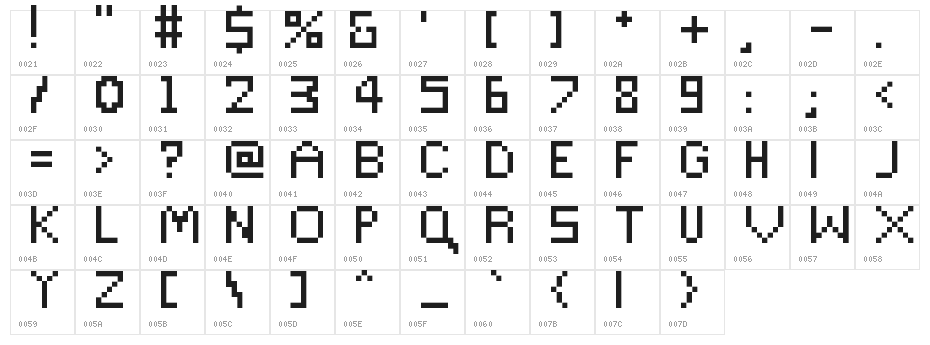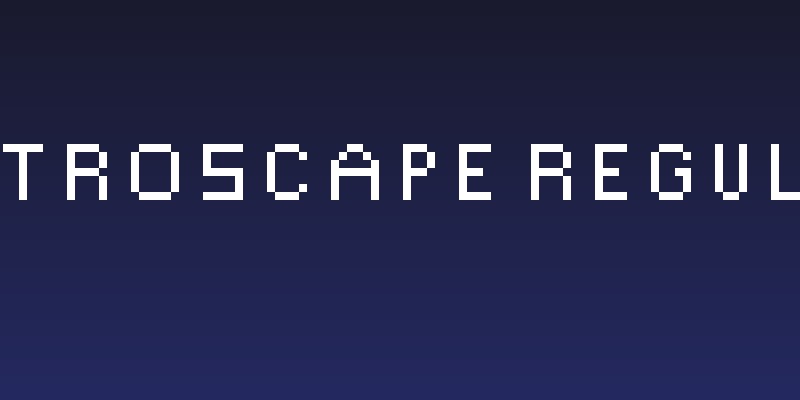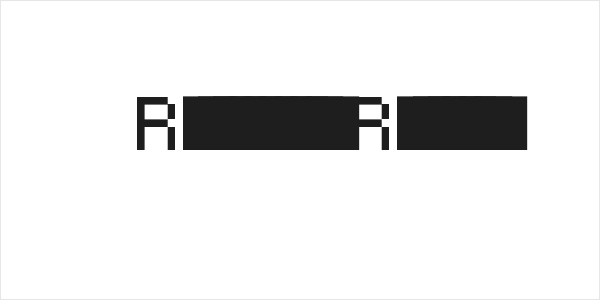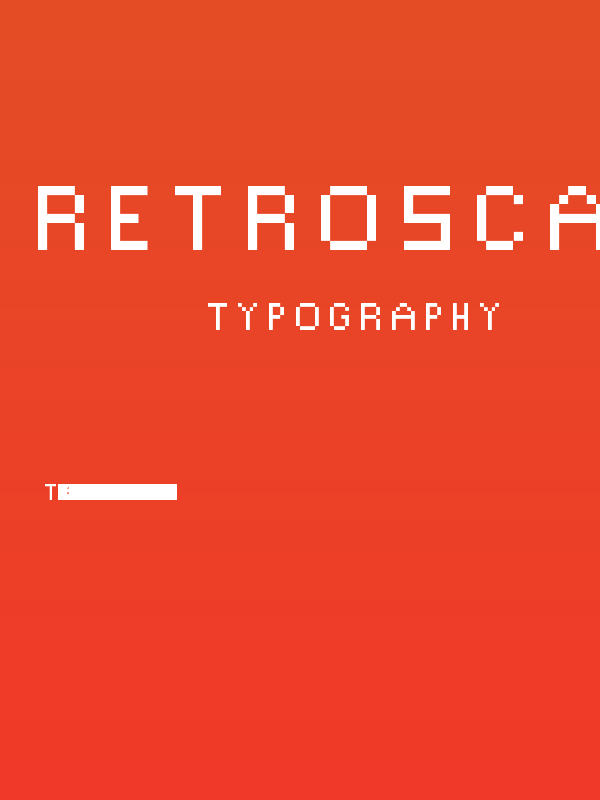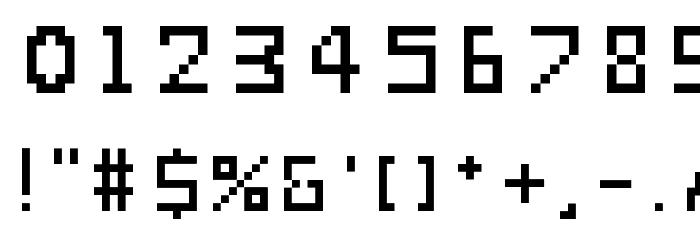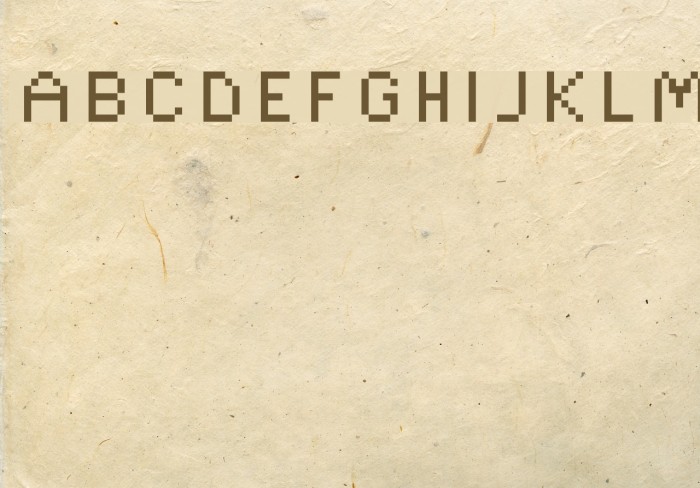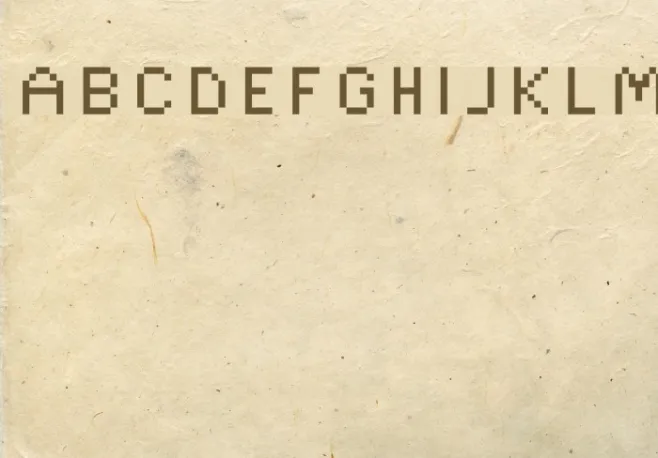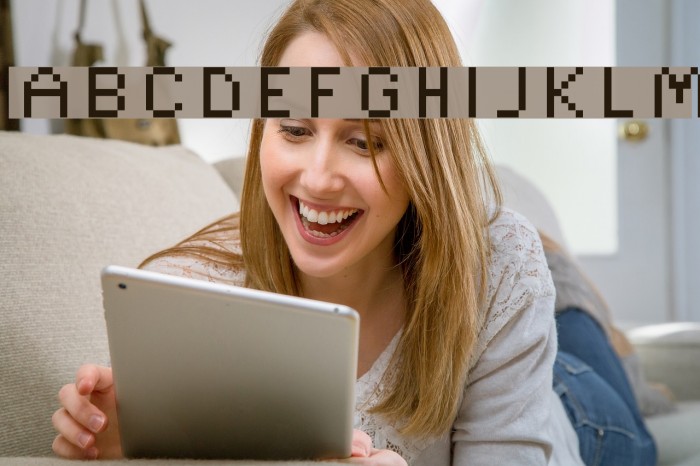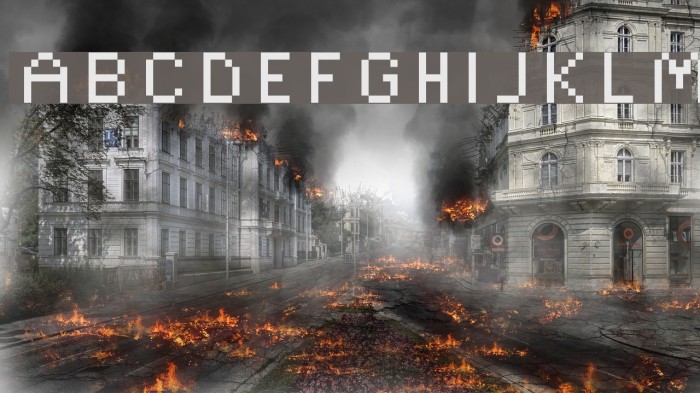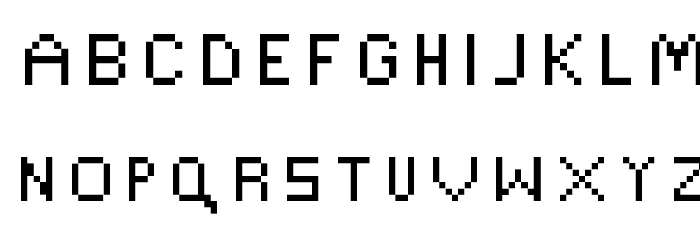
Retroscape Regular Font
Retroscape Regular Description
This font features a pixelated, blocky design reminiscent of early digital displays and retro video games. Each character is composed of square, uniform pixels, giving it a distinctly digital and nostalgic feel. The uppercase and lowercase letters maintain a consistent height, contributing to a monospaced appearance. The numbers and special characters follow the same pixelated style, ensuring uniformity across all glyphs. This font's simplicity and geometric form make it highly legible, even at smaller sizes, while its retro aesthetic adds a playful and vintage touch.
| Use Case | Logos, Headlines, Digital Art |
| Proposed Projects | Ideal for retro-themed designs, video game graphics, digital art projects, and any creative work that seeks to evoke nostalgia for early computing and gaming eras. |